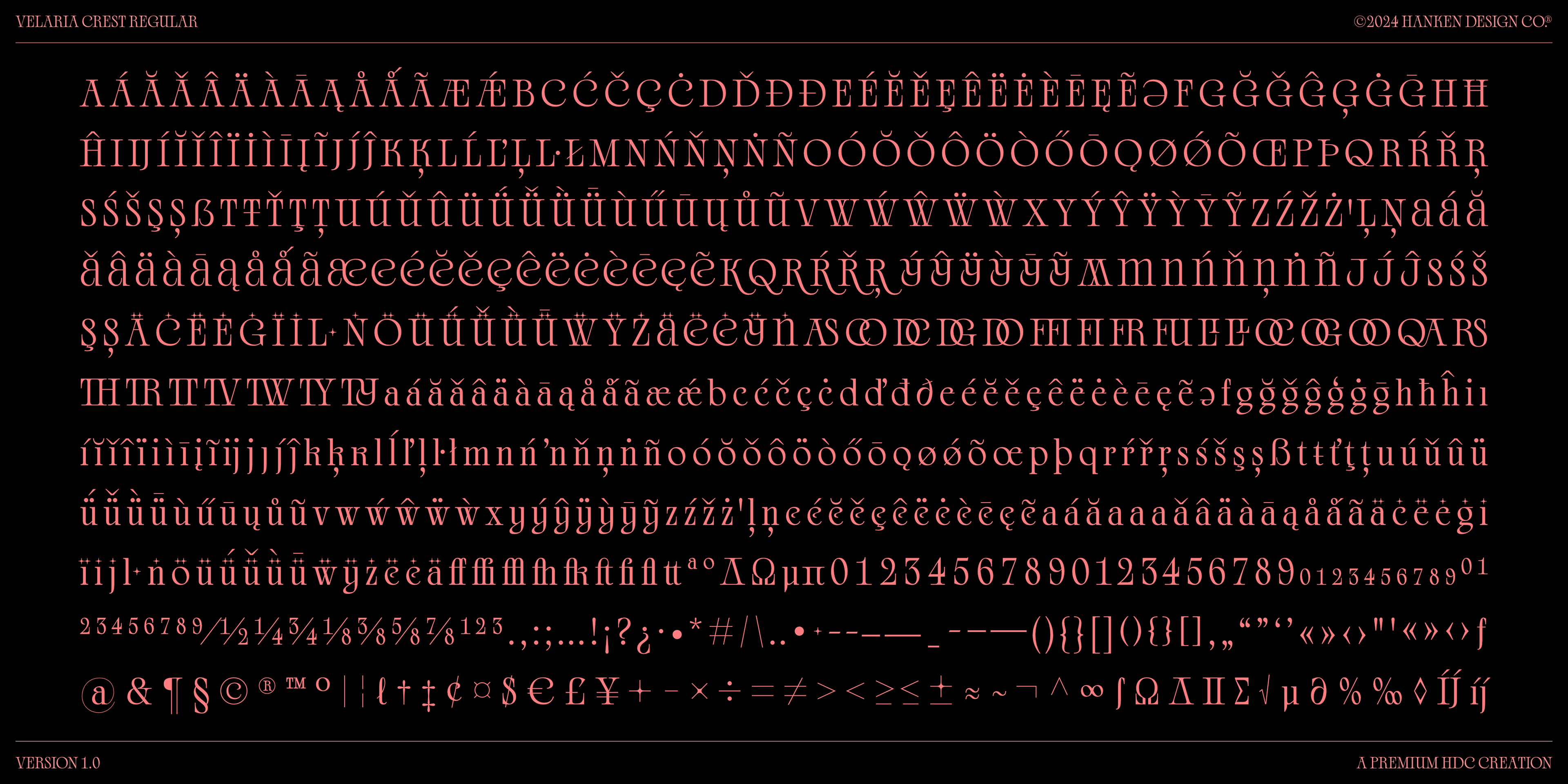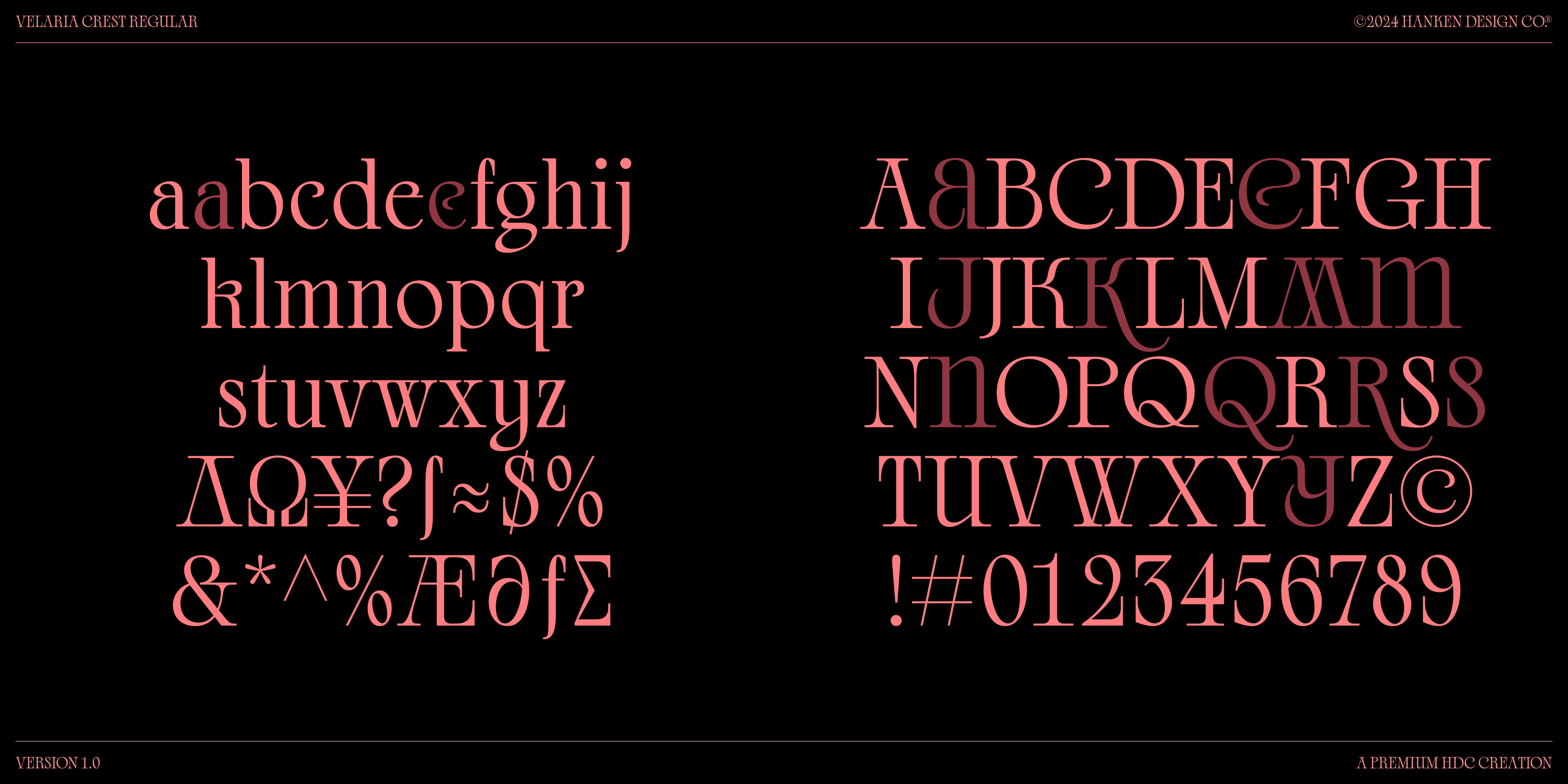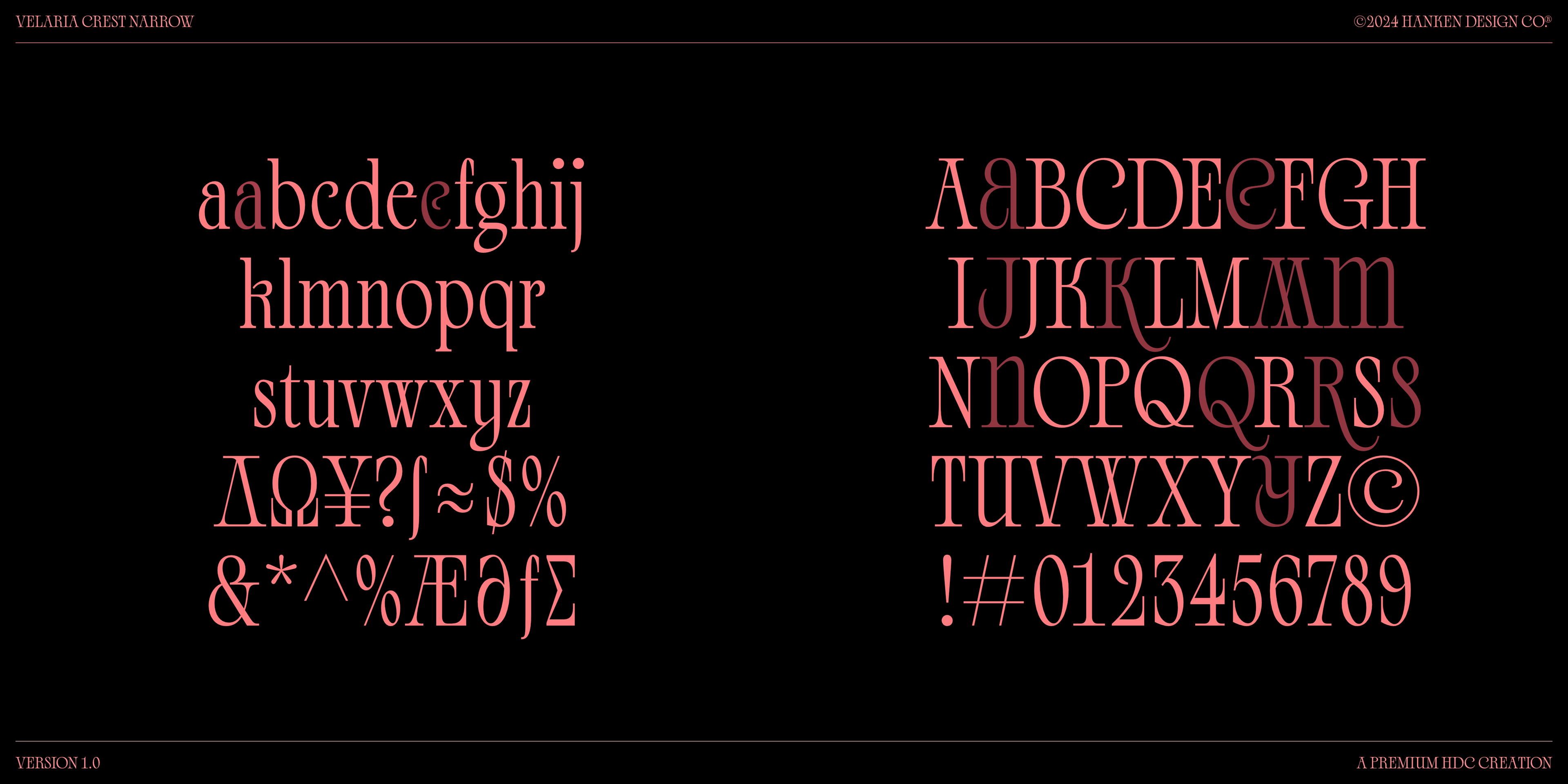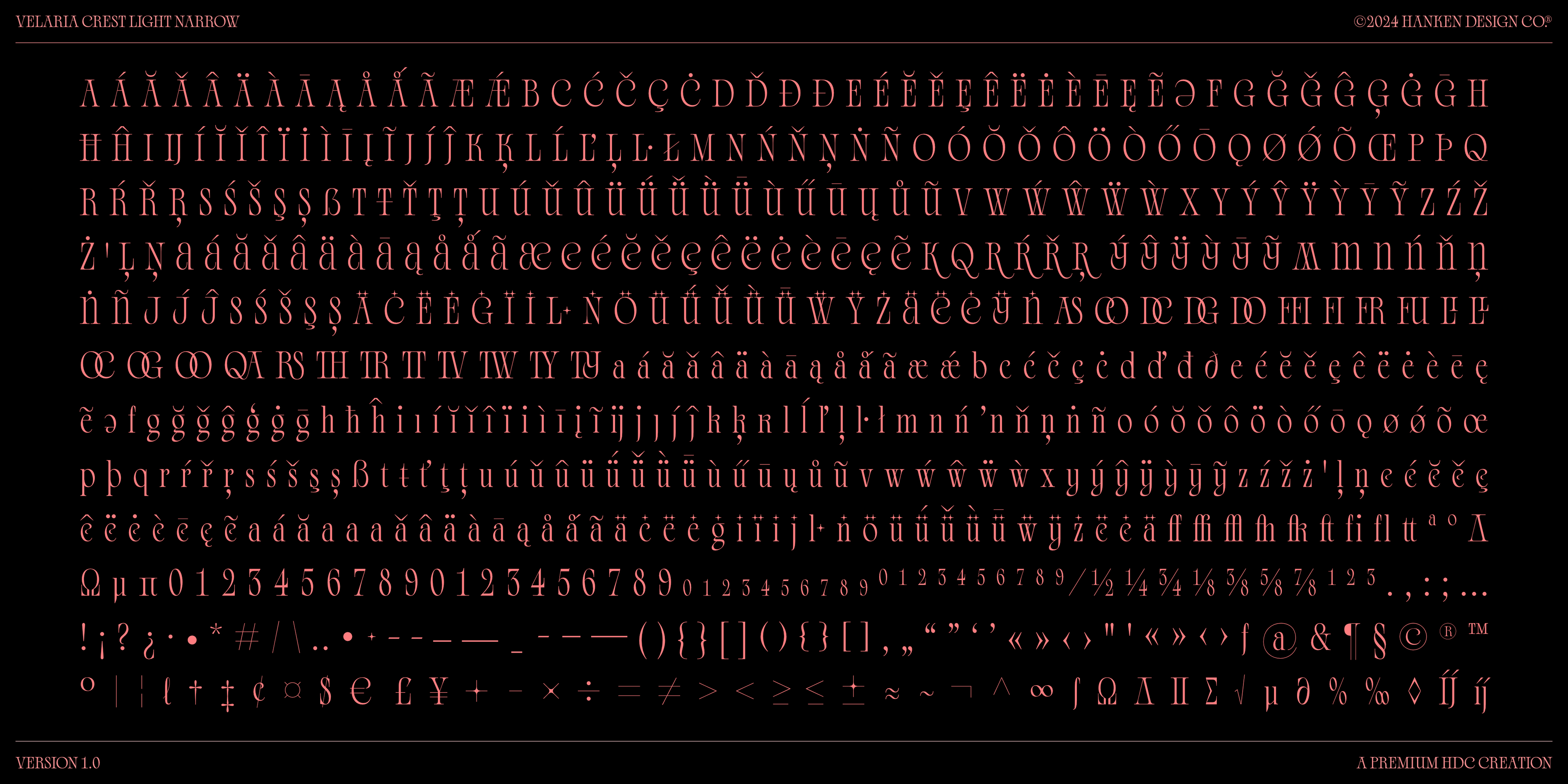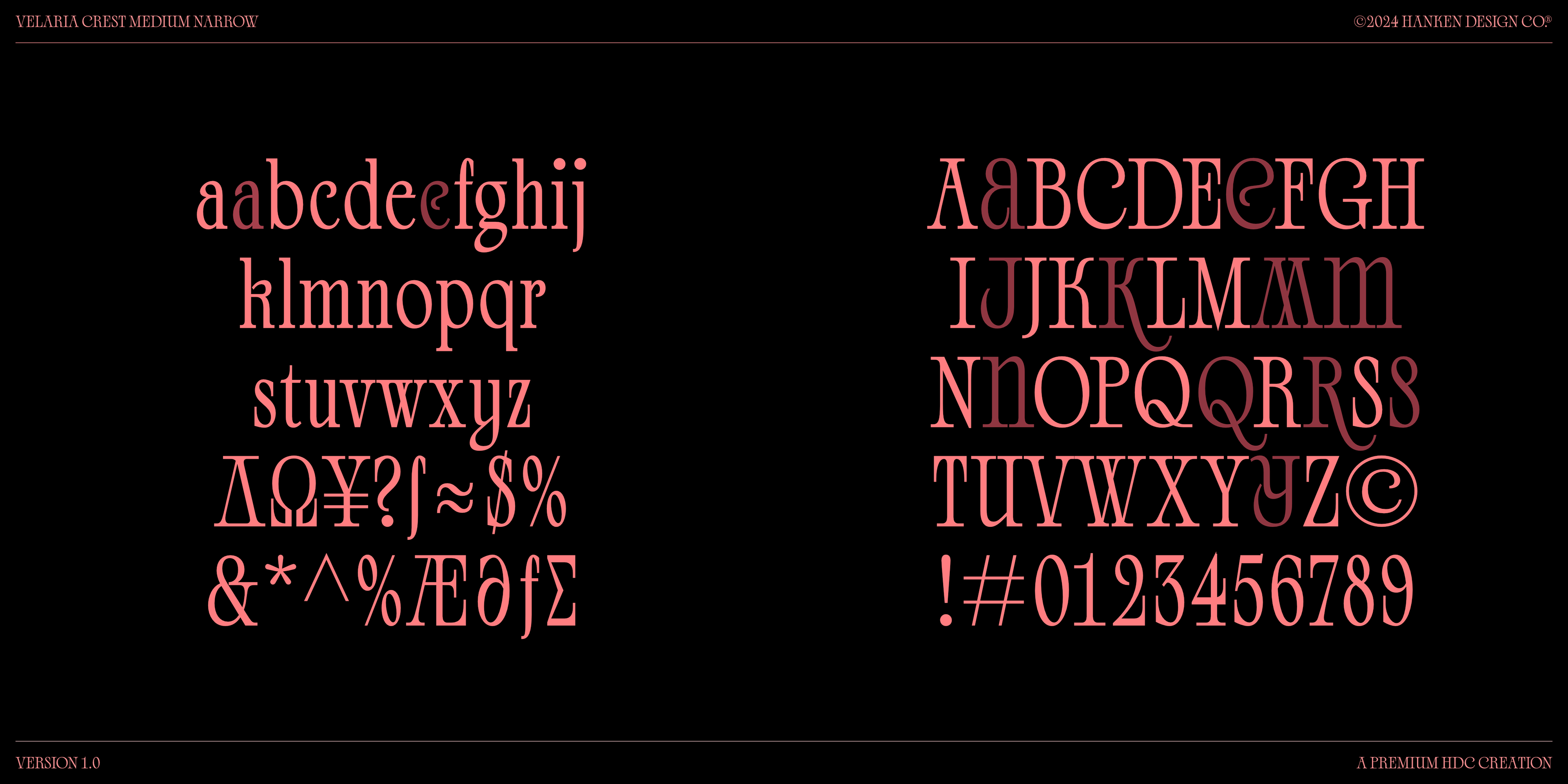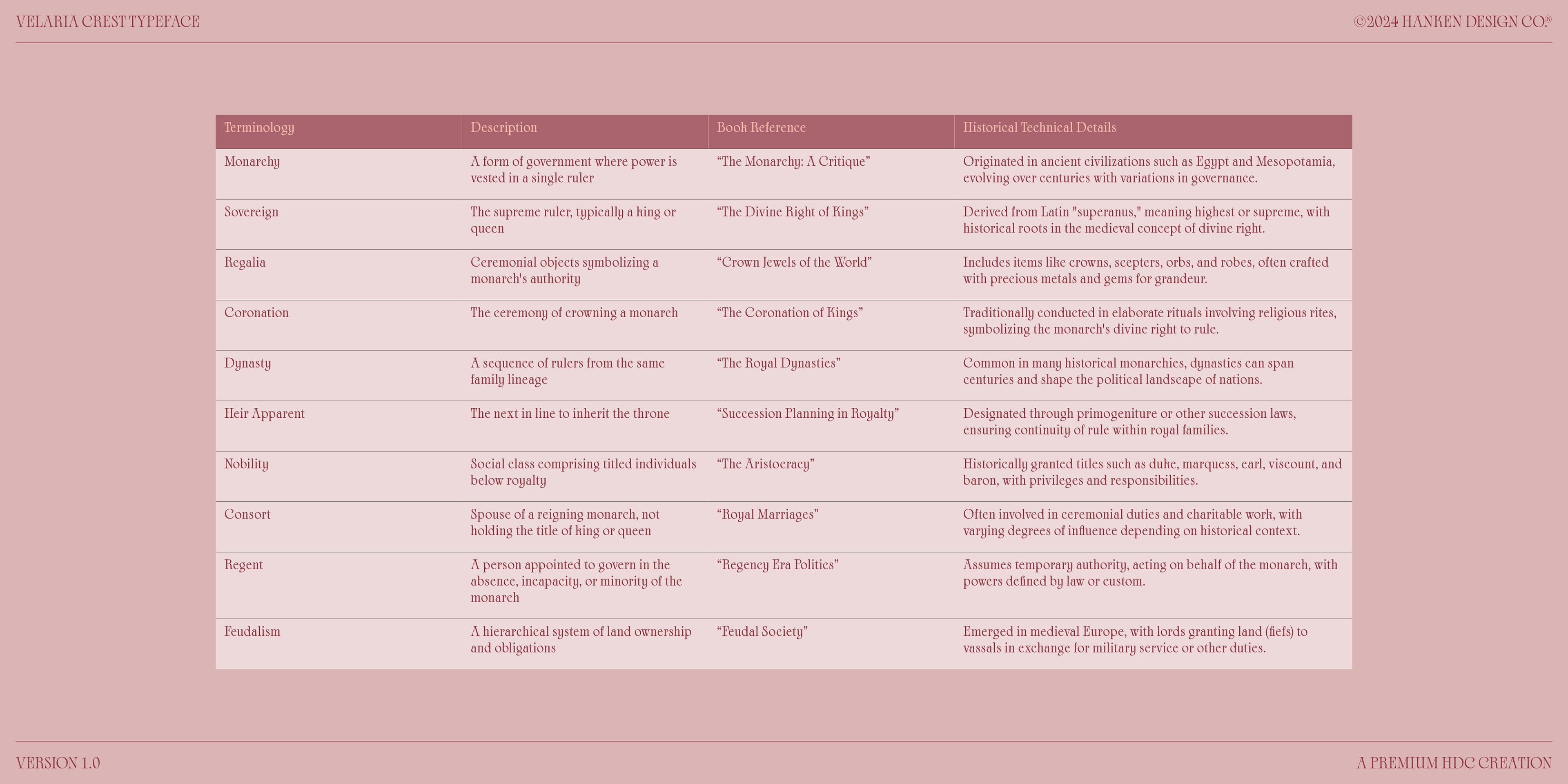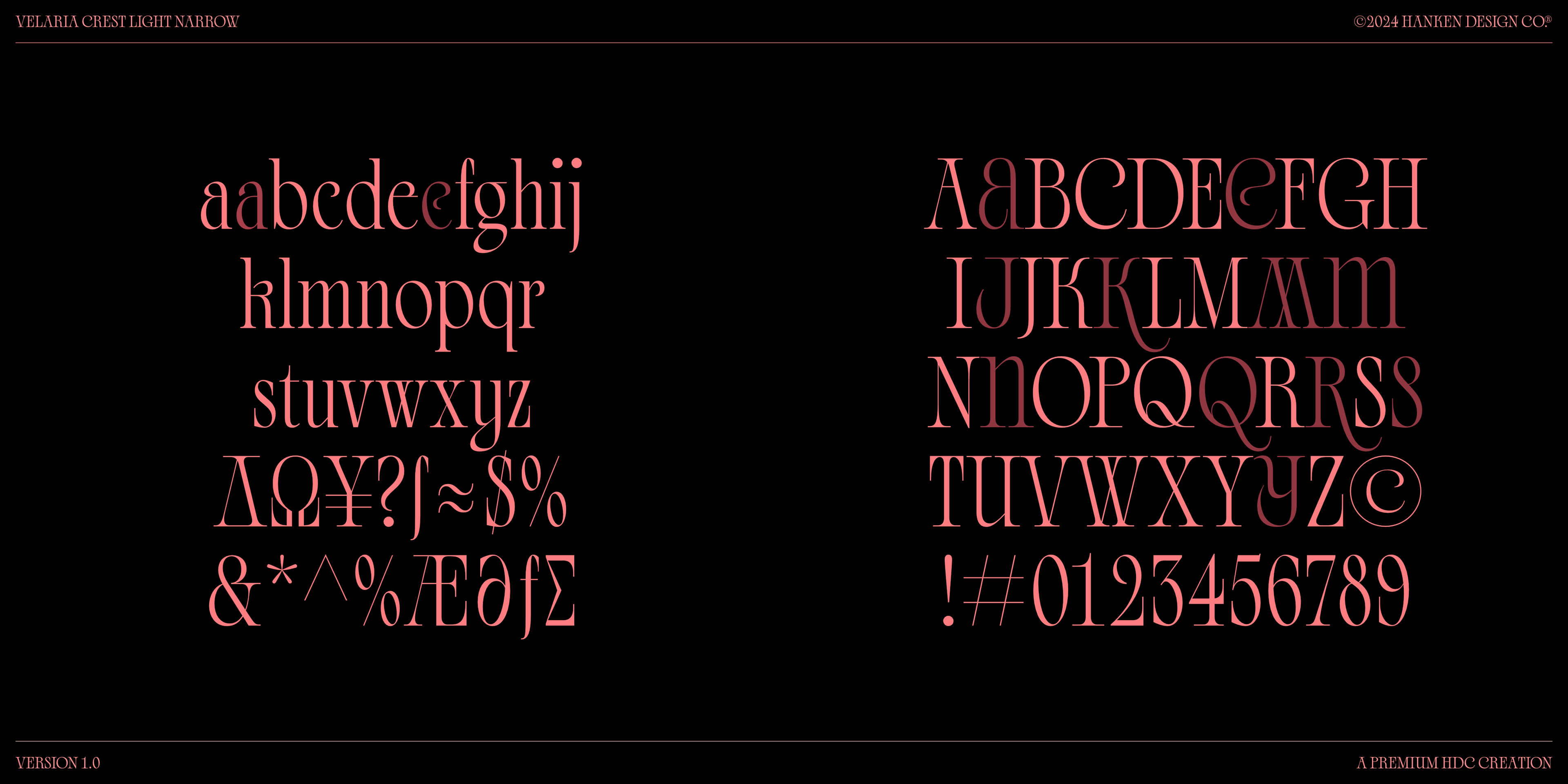
Velaria Crest isn't just a typeface; it's a statement. When you switch it to uppercase, something magical happens. It transforms into a powerhouse of typography, exuding strength and authority with every bold stroke and commanding curve. Each letter stands tall, making its presence known with unwavering confidence.
This typeface is perfect for when you need to make a bold impression. Even if it's a magazine masthead, a book cover, or a billboard, Velaria Crest demands attention and leaves a lasting mark. Its bold, regal look elevates even the simplest text, turning it into a masterpiece.
In short, Velaria Crest in uppercase is more than just letters on a page. It's a symbol of power, prestige, and timeless elegance. Make your designs unforgettable with the commanding presence of Velaria Crest.
Velaria Crest is perfect for when you need to make a bold impression. Even if it's a magazine masthead, a book cover, or a billboard, Velaria Crest demands attention and leaves a lasting mark. Its bold, regal look elevates even the simplest text, turning it into a masterpiece.